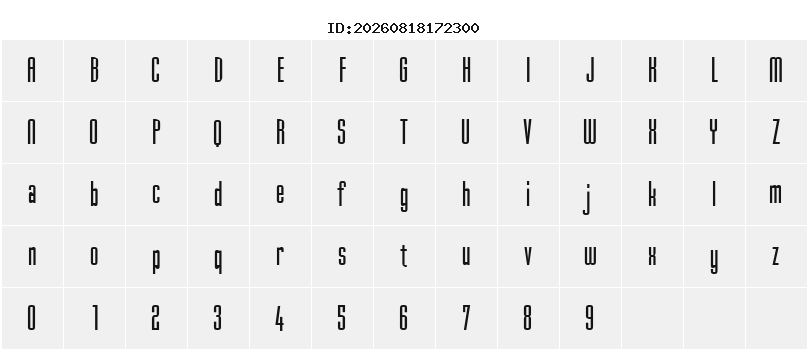
Skyline Preview
• Font Name: Skyline
• Full Font Name: Skyline Regular
About Skyline.ttf
Skyline.ttf is a modern, elegant sans-serif font designed for ultimate readability and visual harmony. Perfect for branding, headlines, web design, and print materials.